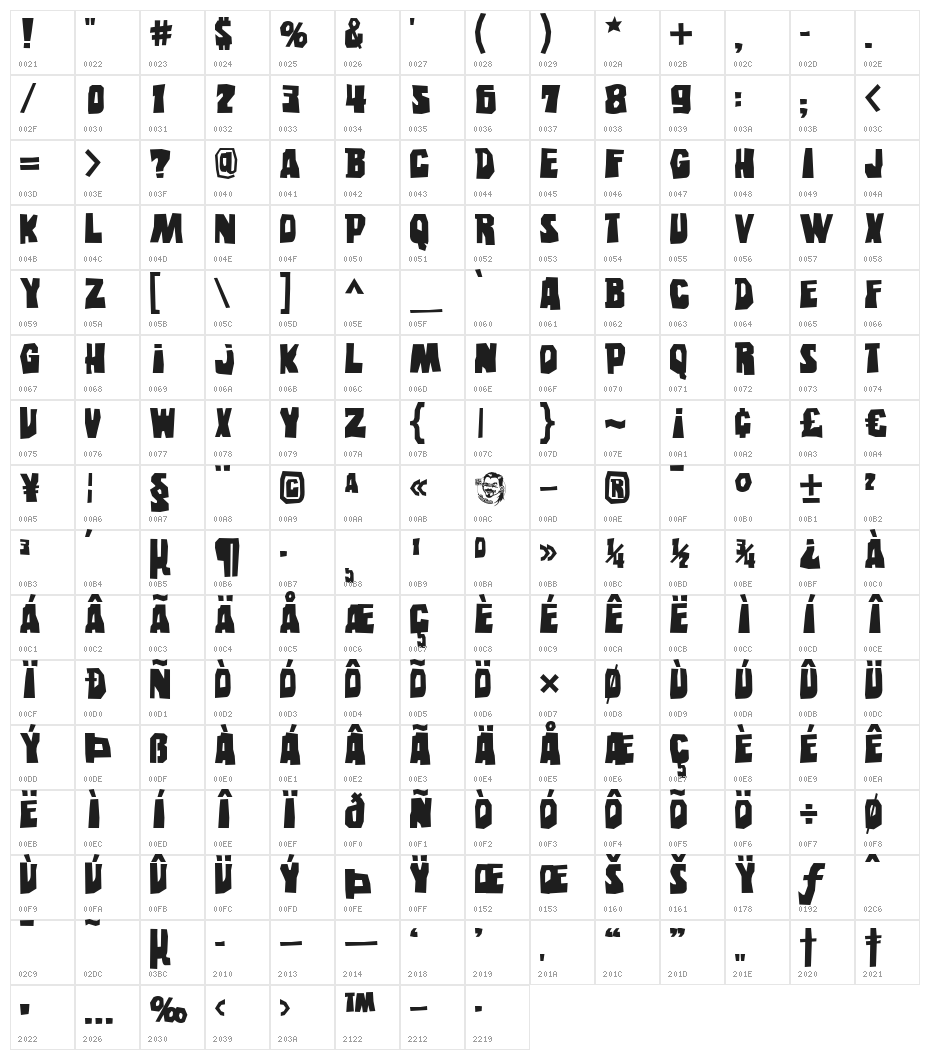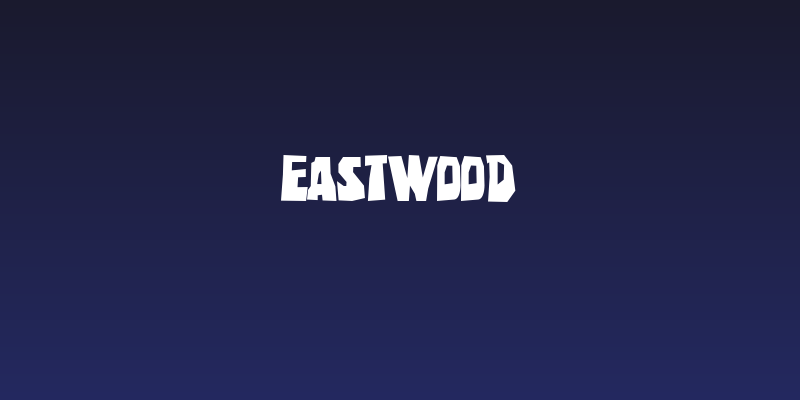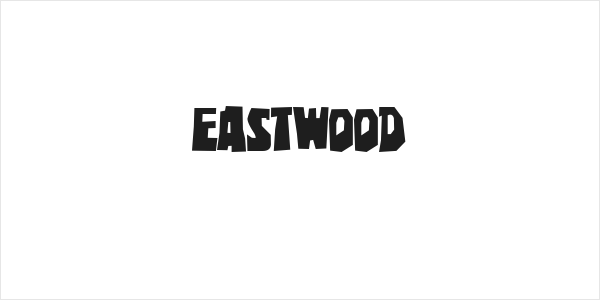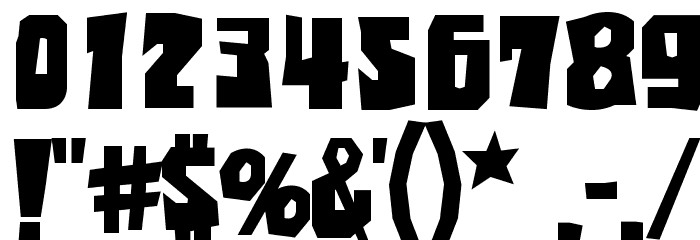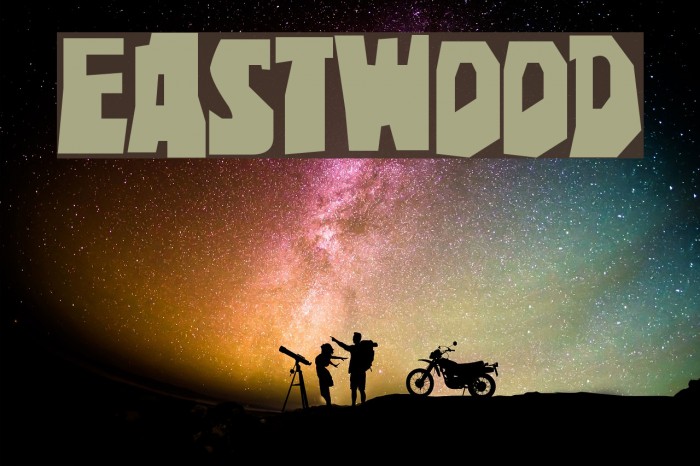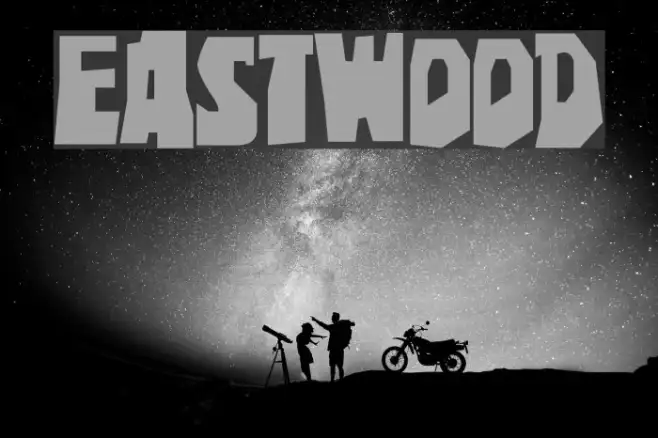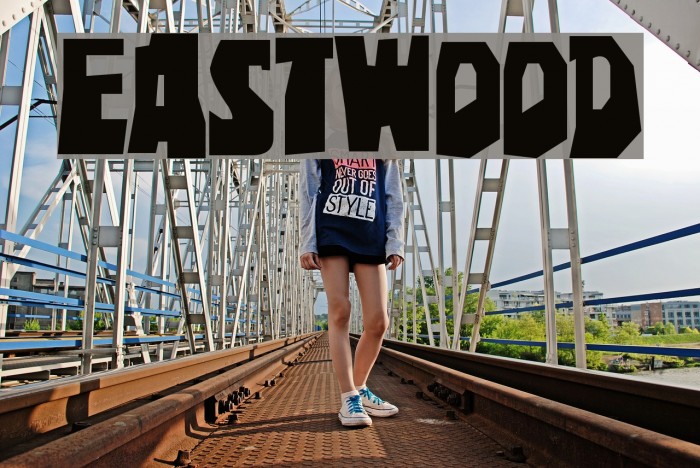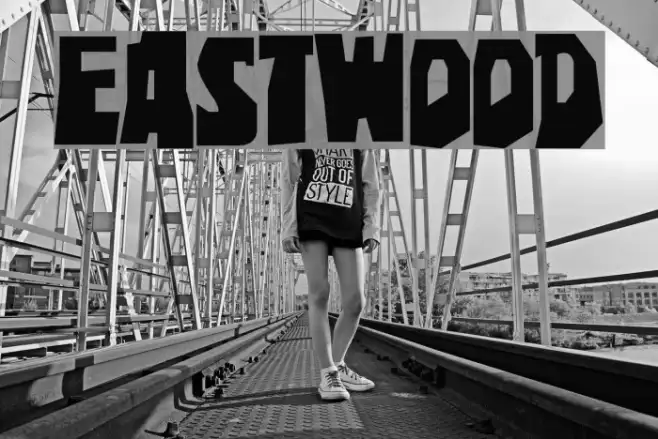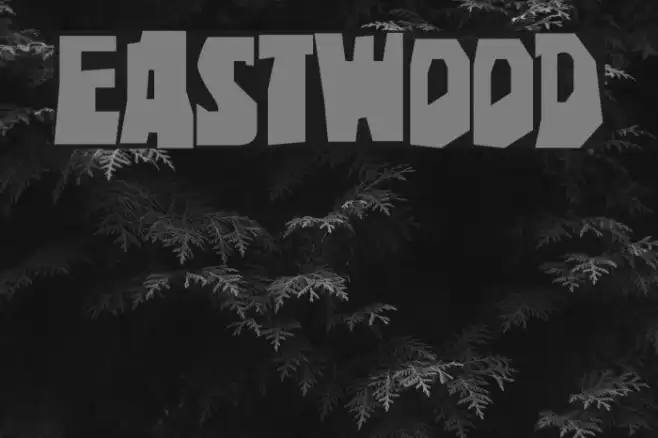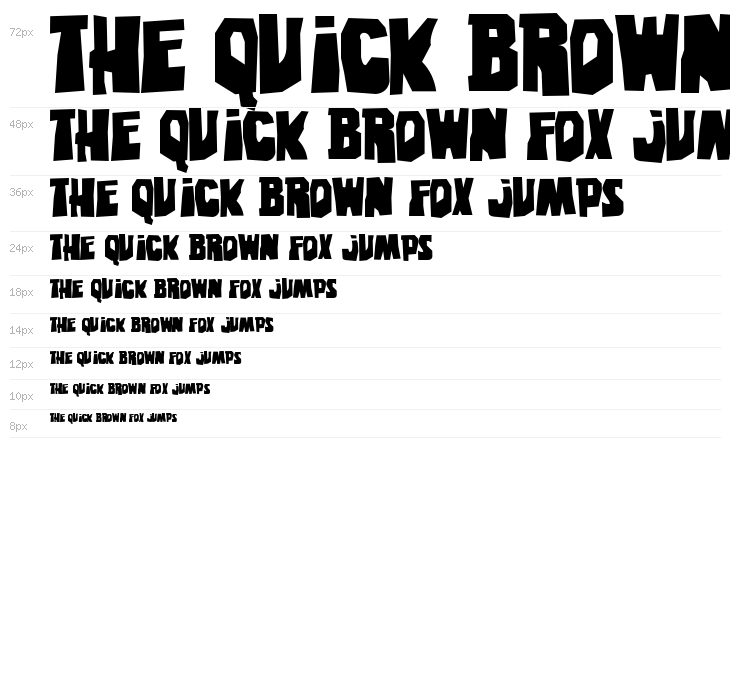
Eastwood Font
Eastwood Description
This font features a bold and rugged design, characterized by its sharp, angular edges and irregular shapes that give it a dynamic and energetic appearance. The uppercase letters are particularly striking, with a blocky and robust form that commands attention. The numbers and special characters maintain this bold aesthetic, ensuring consistency across all glyphs. Its unique style is reminiscent of vintage western or adventure themes, making it ideal for projects that require a strong, impactful visual presence.
| Proposed Projects | Ideal for posters, logos, and branding projects that require a bold, adventurous aesthetic. |